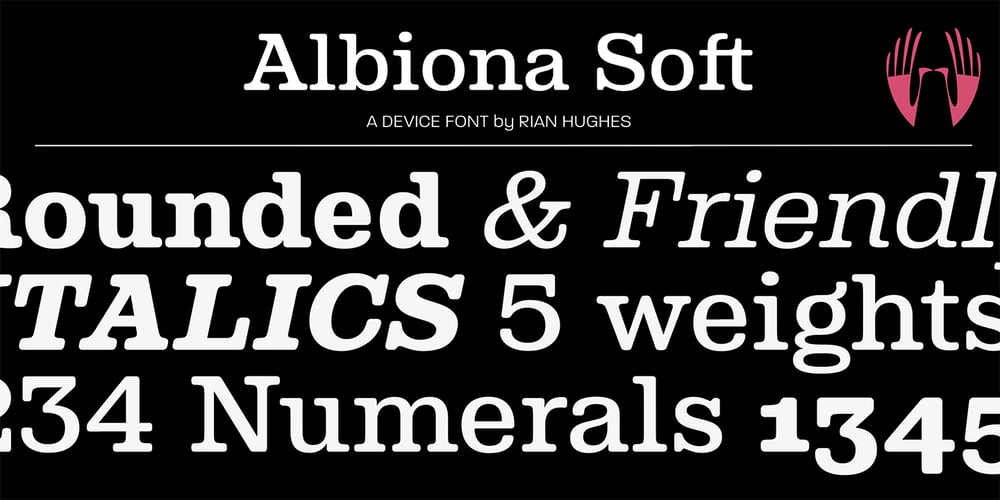
Albiona Soft Font Family was designed by Rian Hughes and published by Device. Albiona Soft contains 10 styles and family package options. A rounded version of Albiona, a contemporary slab-serif which revisits aspects of Robert Besley’s classic Clarendon. Originally named after the Clarendon Press in Oxford, the type family was subsequently extended by Stephenson Blake in the 1950s. Albiona adds the inwardly-curved stroke terminals of the same foundry’s Grotesque series, and includes italics and old-style and tabular numerals. The original Clarendon’s ball serifs and calligraphic eccentricities have been rationalised for functional contemporary uses. The family consists of five weights plus italics and a stencil, and its clean readable style is perfect for both extended text as well as headline setting.